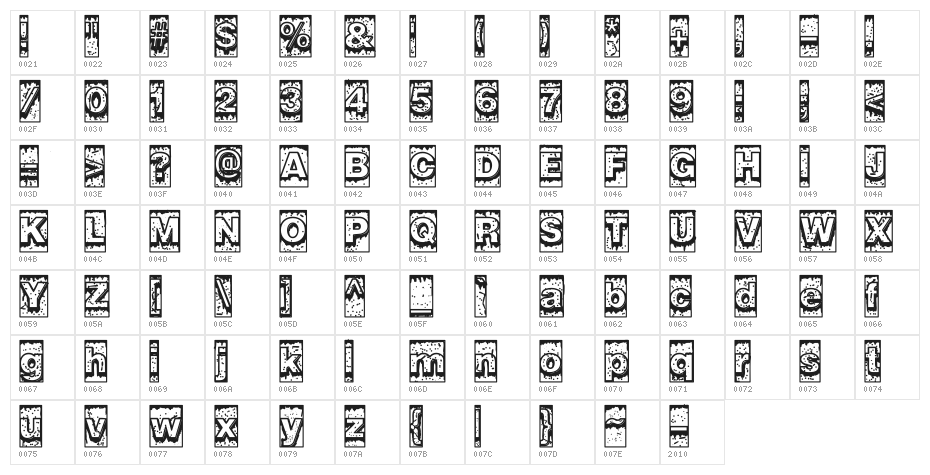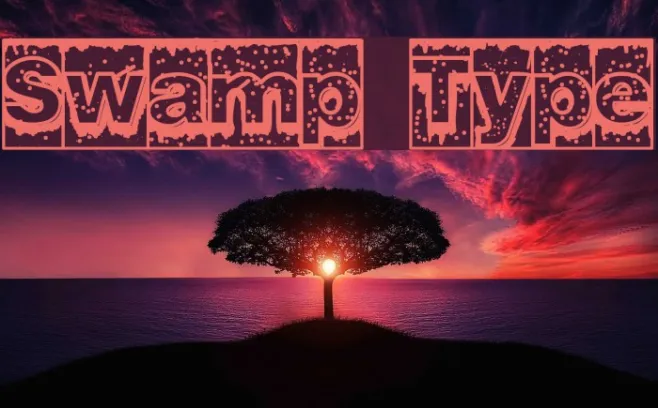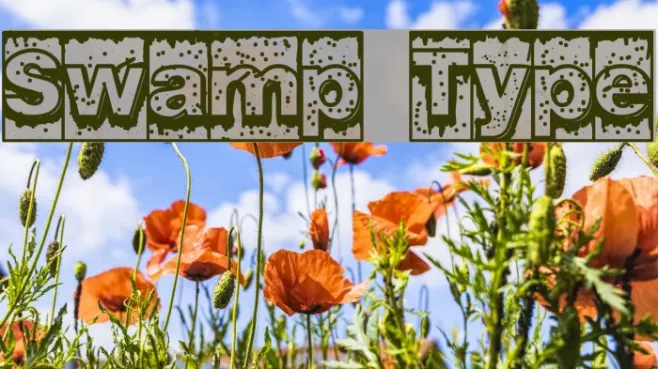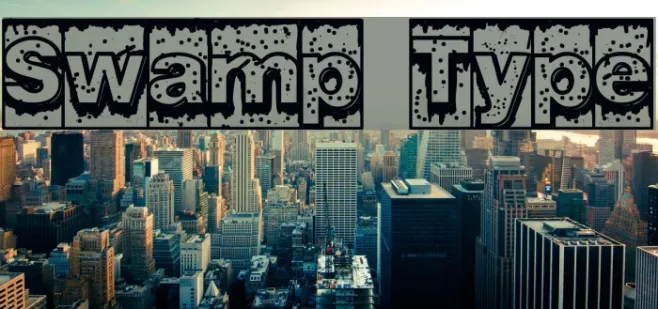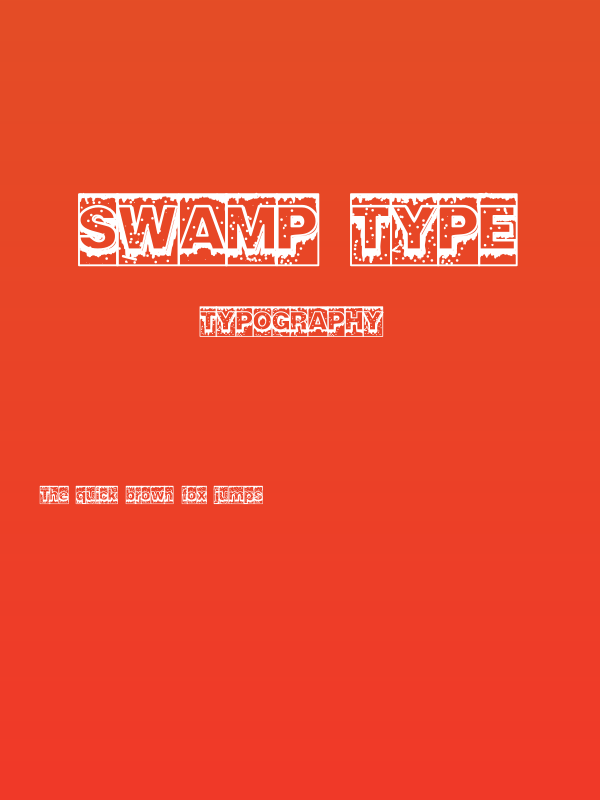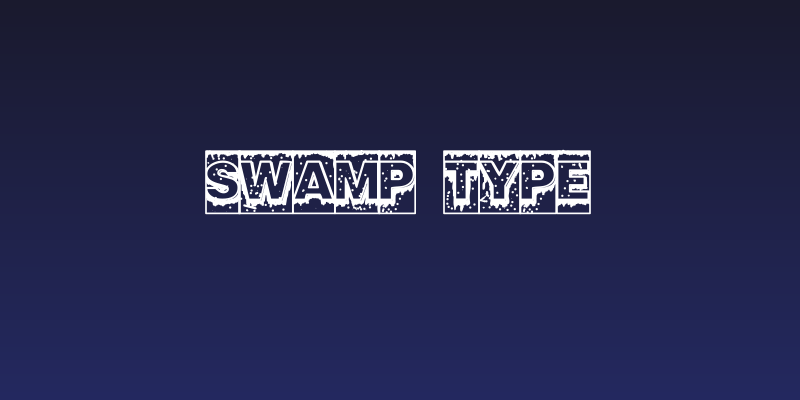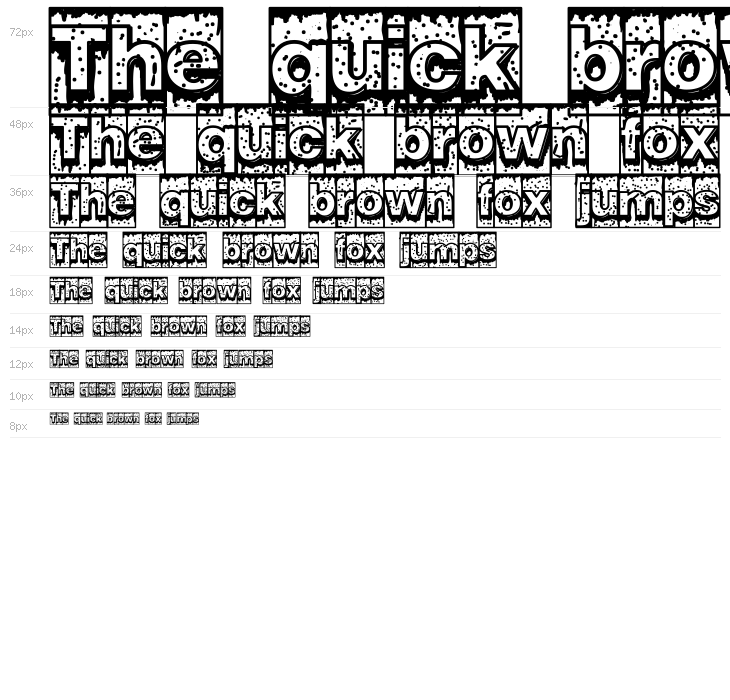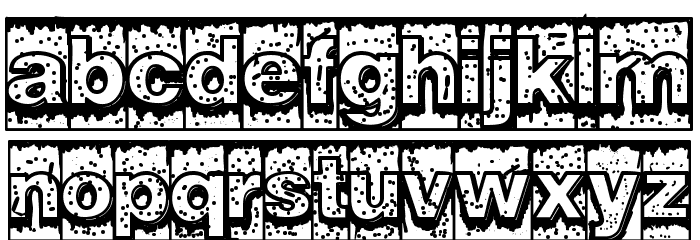
Swamp Type Font
Swamp Type Description
This font features a bold, decorative style with a unique swamp-like texture. Each character is encased in a blocky, uneven outline that gives it a rugged, organic appearance. The letters are filled with a speckled pattern reminiscent of mud or moss, adding to its natural, earthy feel. The uppercase and lowercase letters maintain a consistent style, with the uppercase being slightly larger and more pronounced. Numbers and special characters follow the same design, ensuring uniformity across all elements. This font is ideal for projects that require a distinctive, eye-catching look with a touch of nature-inspired flair.
| Proposed Projects | Ideal for environmental campaigns, outdoor event posters, or any project needing a nature-inspired theme. |